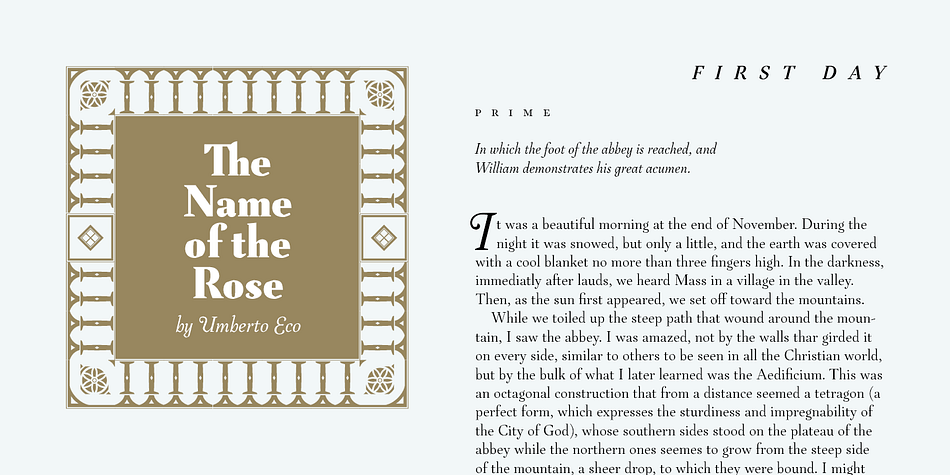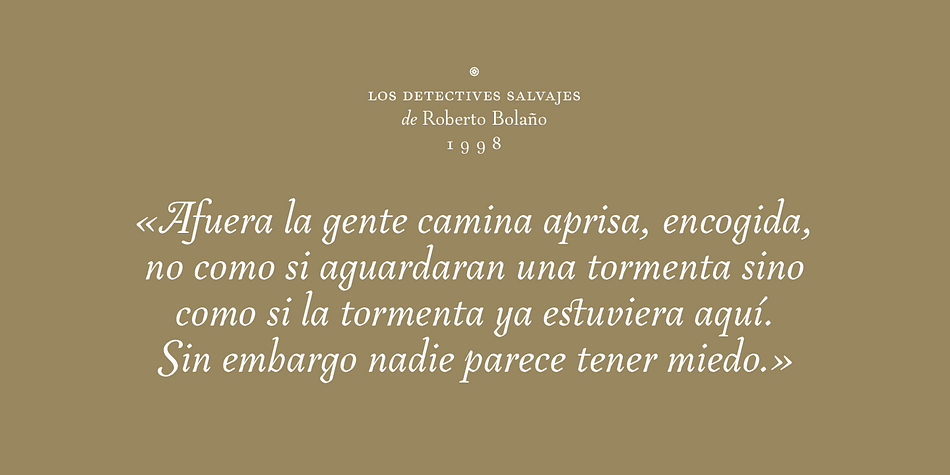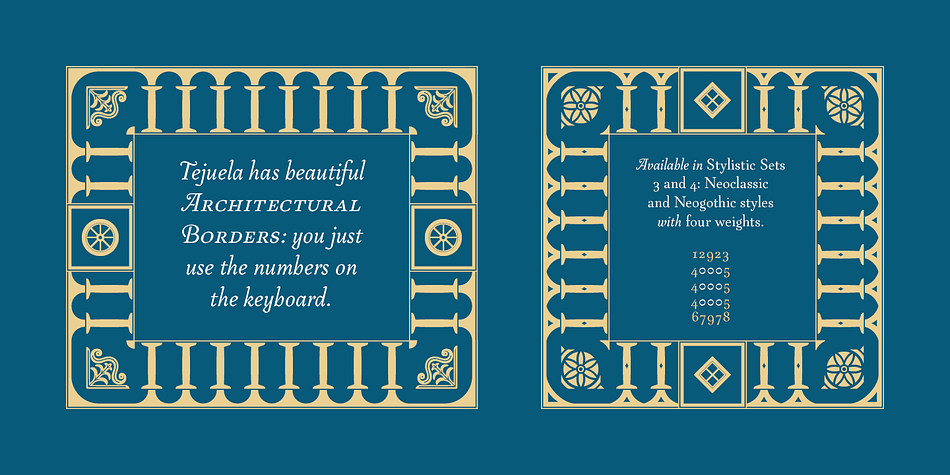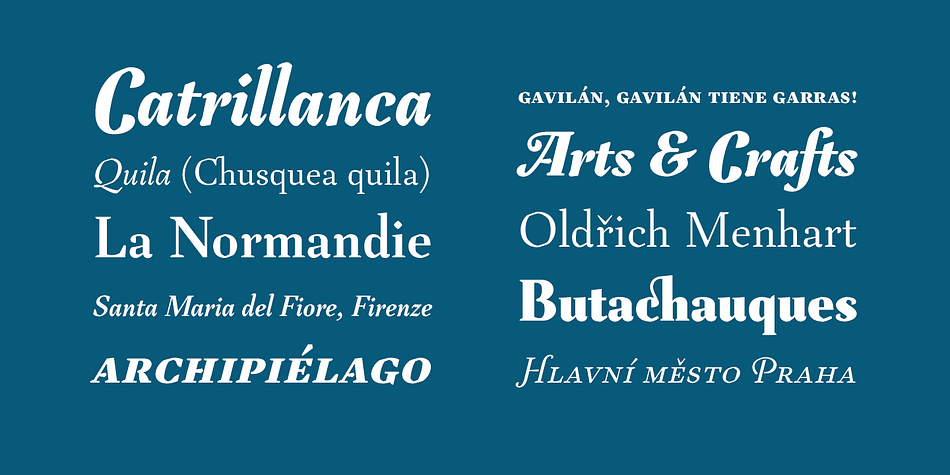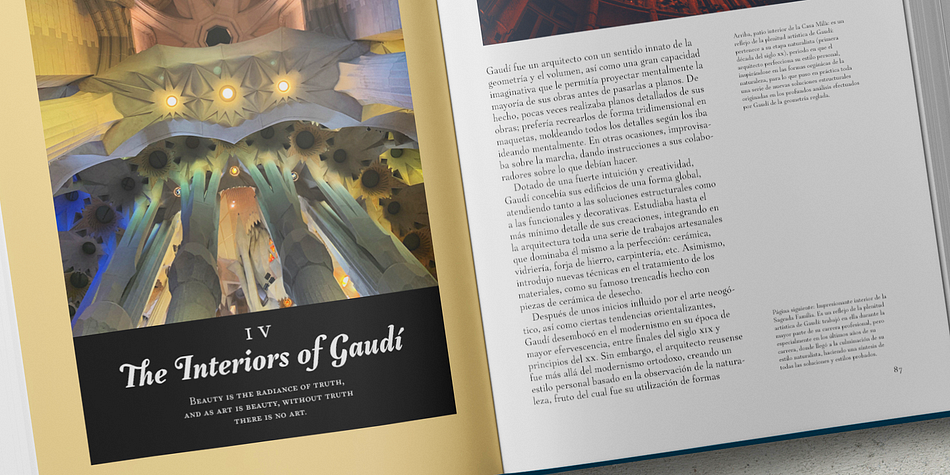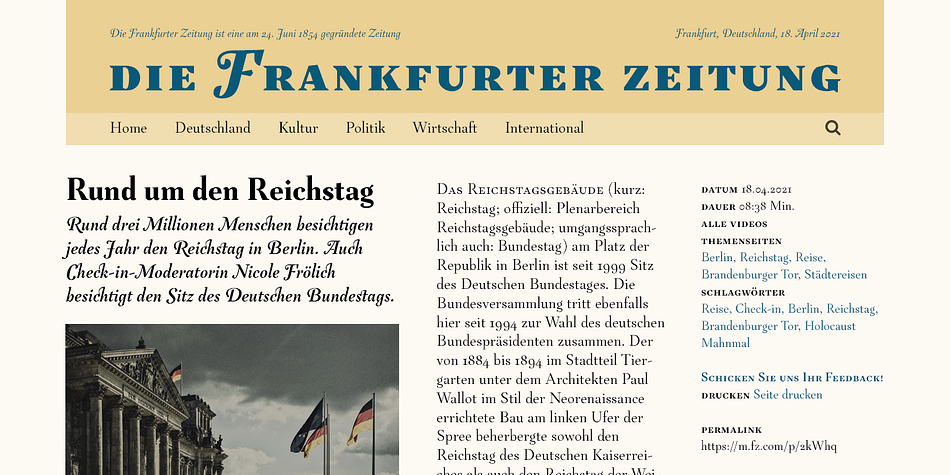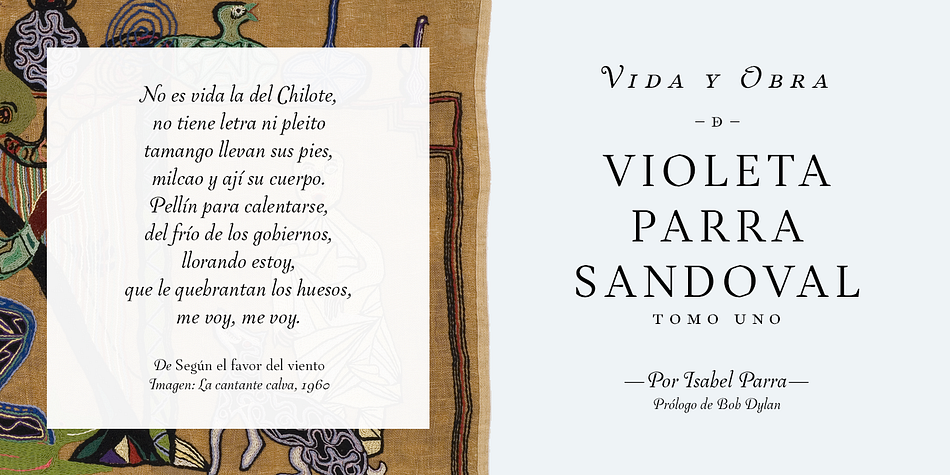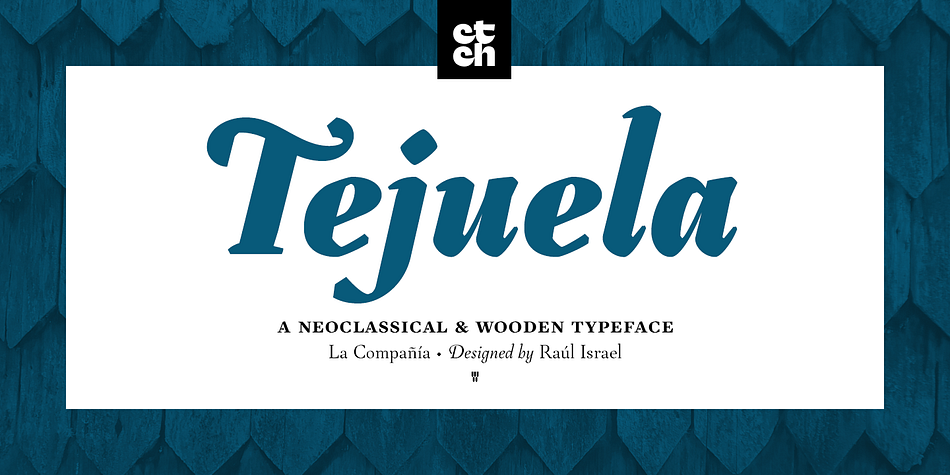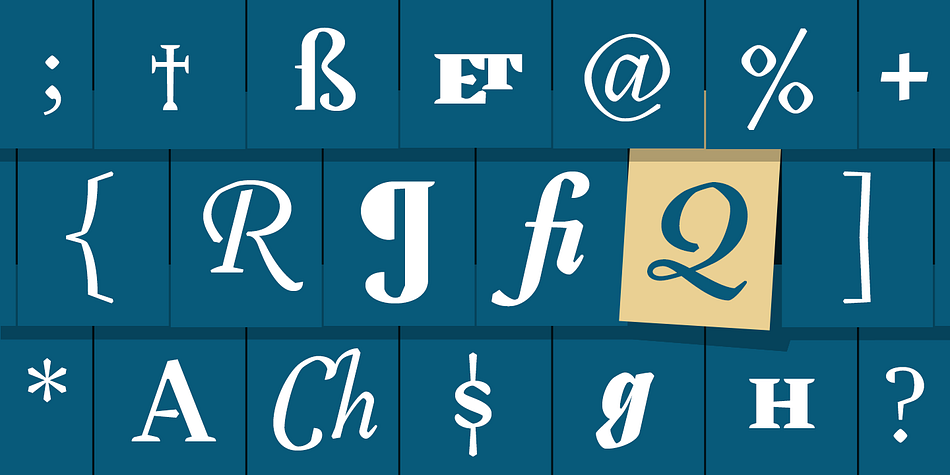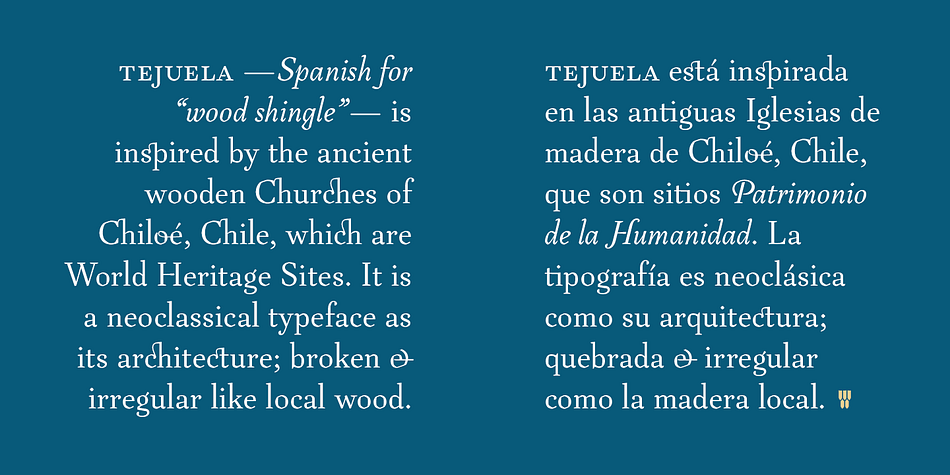
Designed by Raúl Israel, LC Tejuela is a display serif and serif font family. This typeface has eight styles and was published by Compañía Tipográfica De Chile.
Tejuela (Spanish for “Wood Shingle”) is a neoclassical type inspired by the wooden architecture of the ancient churches of Chiloé, an archipelago in southern Chile; which are World Heritage Sites. This typeface has rough and broken forms but with soft strokes.
The neoclassical characteristic of Tejuela is due to the architecture of these temples, which belong to this style but adapted to wood with excellent quality and ingenuity by Chiloé builders using a material available in the area. Therefore, this typeface reflects the tradition of the fonts of that period, but adapted to the coarseness and warmth of the southern wood of the world.
Tejuela is useful for extensive texts in literature, history, art and heritage; as also for short and large phrases in headlines according to the occasion.
Tejuela has eight variants in Roman and Italic versions, with small caps, Old Style and Lining numbers, ligatures, alternative glyphs, fractions, among other OpenType features; special mention to the capital letters Swash of the italic versions, which serve to generate delicate compositions. In addition, it has two stylistic sets to compose border ornaments inspired by the Chilota Architecture: colonnades and corners, only using the numbers on the keyboard; it is important that the line spacing has the same value as the font.